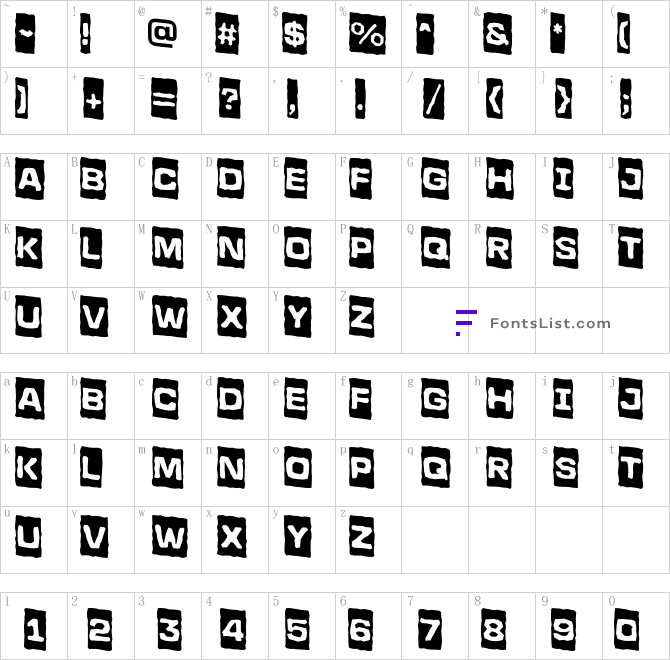
- Font Name:a_LineaSansCmBrkDn
- Subfamily:ArsenalCompany: a_LineaSansCameoBrokenDown: 1998
- Full Name:a_LineaSansCmBrkDn Bold
- PostScript:a_LineaSansCmBrkDn-Bold
a_LineaSansCmBrkDn-Bold.ttf is a very beautiful artistic font, a_LineaSansCmBrkDn-Bold.ttf is widely used in the design and printing of various books and pictures,a_LineaSansCmBrkDn-Bold.ttf has a strong visual impact,a_LineaSansCmBrkDn-Bold.ttf is a commonly used font in newspapers, magazines and books, and is used in posters, e-commerce Poster design, store design, logo design, font design and other fields.a_LineaSansCmBrkDn-Bold.